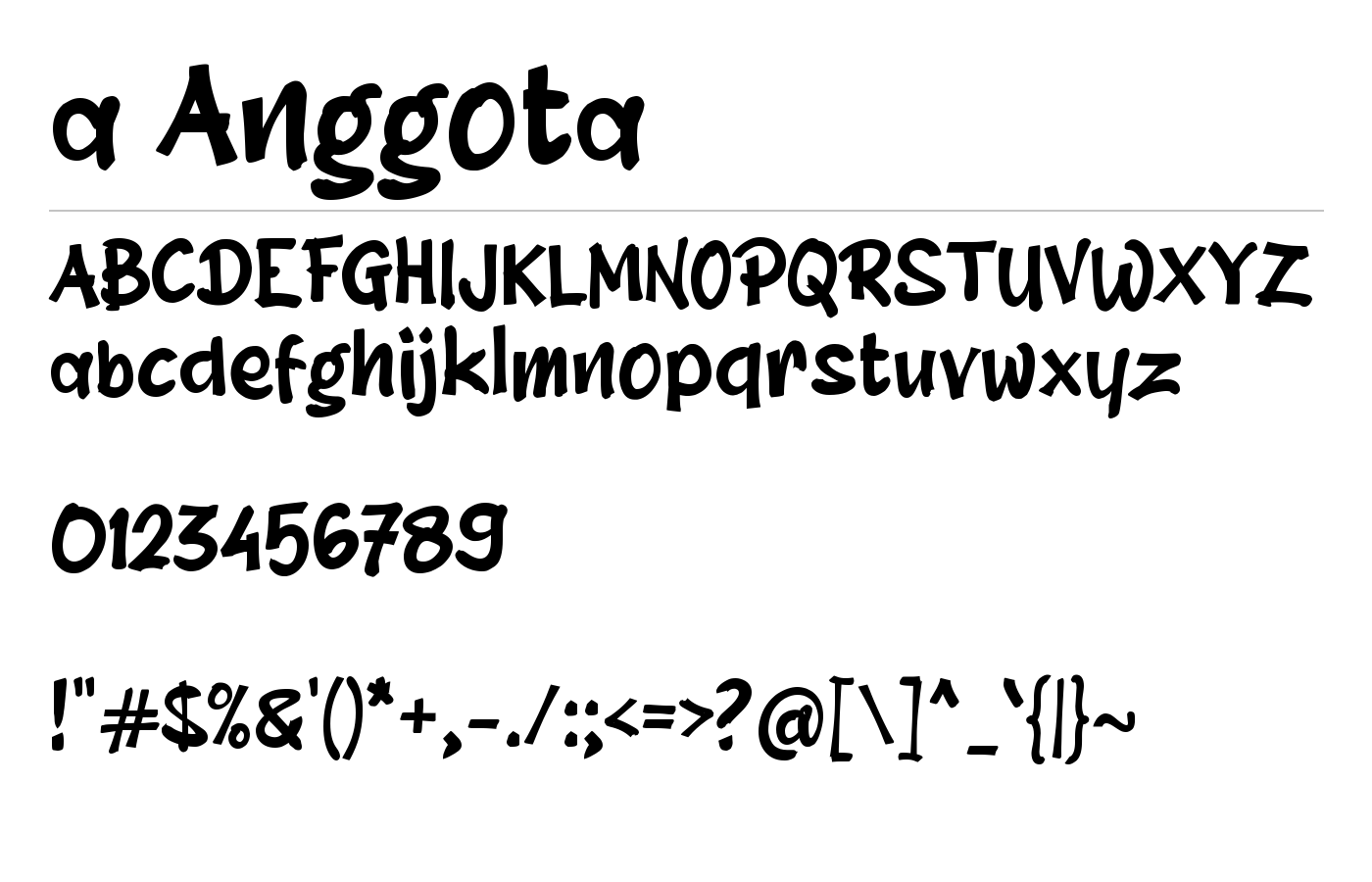
Anggota is a playful, handwritten sans serif font with bold, uneven strokes and a casual, friendly vibe. Its slightly irregular shapes and moderate x-height give it a warm, approachable feel, ideal for informal designs, children’s books, or creative projects that need a personal, quirky touch. This font works well in headlines and logos where personality and spontaneity are key.
a Anggota Font